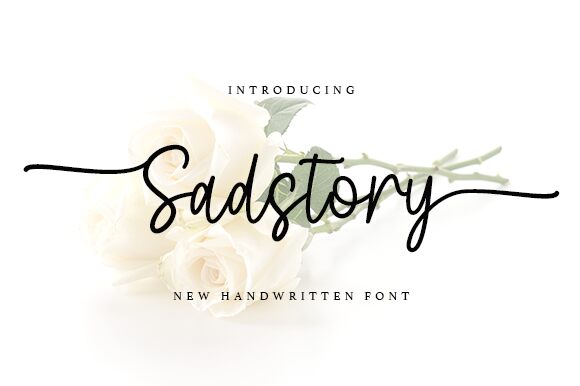
Sadstory
Sadstory, a captivating handwritten font crafted by Wahyu Studio, exudes a sense of heartfelt expression and raw emotion. Its light, signature-inspired strokes possess a delicate and elegant quality, inviting the viewer to immerse themselves in the narrative it conveys. The fluid, organic lines and subtle variations in thickness create a mesmerizing, almost calligraphic effect, evoking a sense of authenticity and personal touch.
Sadstory's versatility allows it to seamlessly integrate into a wide range of design projects, from editorial layouts and branding materials to social media posts and stationery. Its emotive qualities make it an ideal choice for projects seeking to convey a personal, heartfelt message, such as wedding invitations, greeting cards, or online journal entries. Sadstory's distinct character and versatility make it a valuable addition to any designer's creative toolkit.